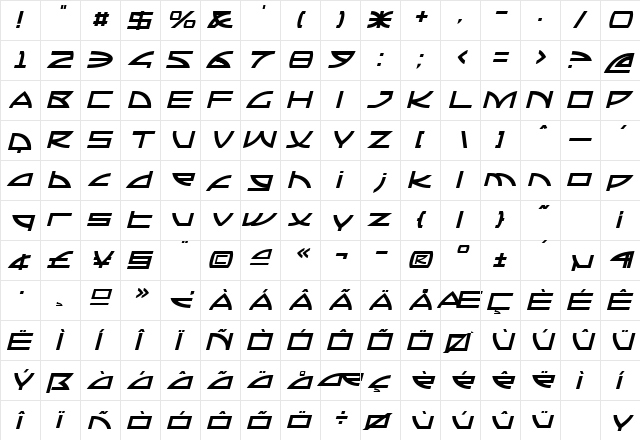
Rapture Oblique
Design Context for Rapture Typeface
Rapture is a composed and adaptable typeface that performs quietly and consistently across a wide range of design contexts. The slanted form adds forward momentum and visual energy.
Pro Tip: Try Rapture for annotation and caption copy alongside an upright companion — the contrast in angle creates a dynamic but ordered typographic system.